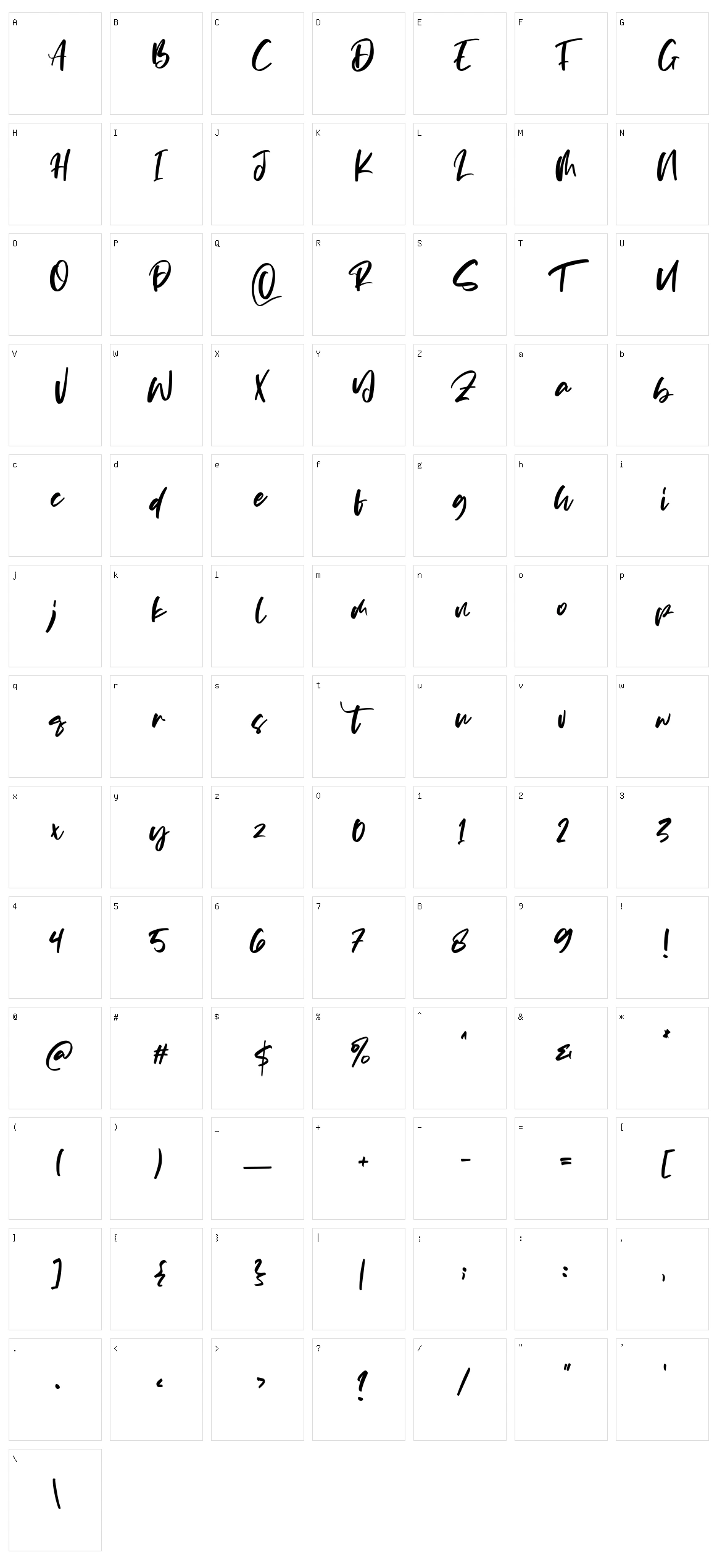
The free font Matsuyama is carefully designed by Hatf Type, showcasing a thoughtful balance of creativity and usability and falls under the Script font style. When you download the ZIP file, it contains only 59.15 KB of font files, making it lightweight and quick to download. Please review the license details below to understand permitted usage and distribution rights. If license information is not available, we recommend using this font for personal projects only or contacting the author directly for commercial usage permissions.